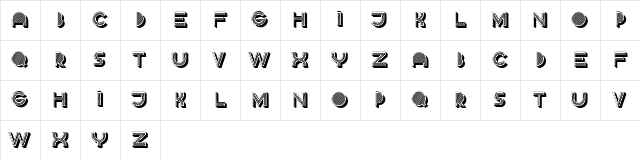
Crossed Hearts Regular
Design Context for Crossed Hearts
Crossed Hearts is a composed and adaptable typeface that performs quietly and consistently across a wide range of design contexts.
Pro Tip: Use Crossed Hearts in both headline and body roles to test its range before committing to a single application.